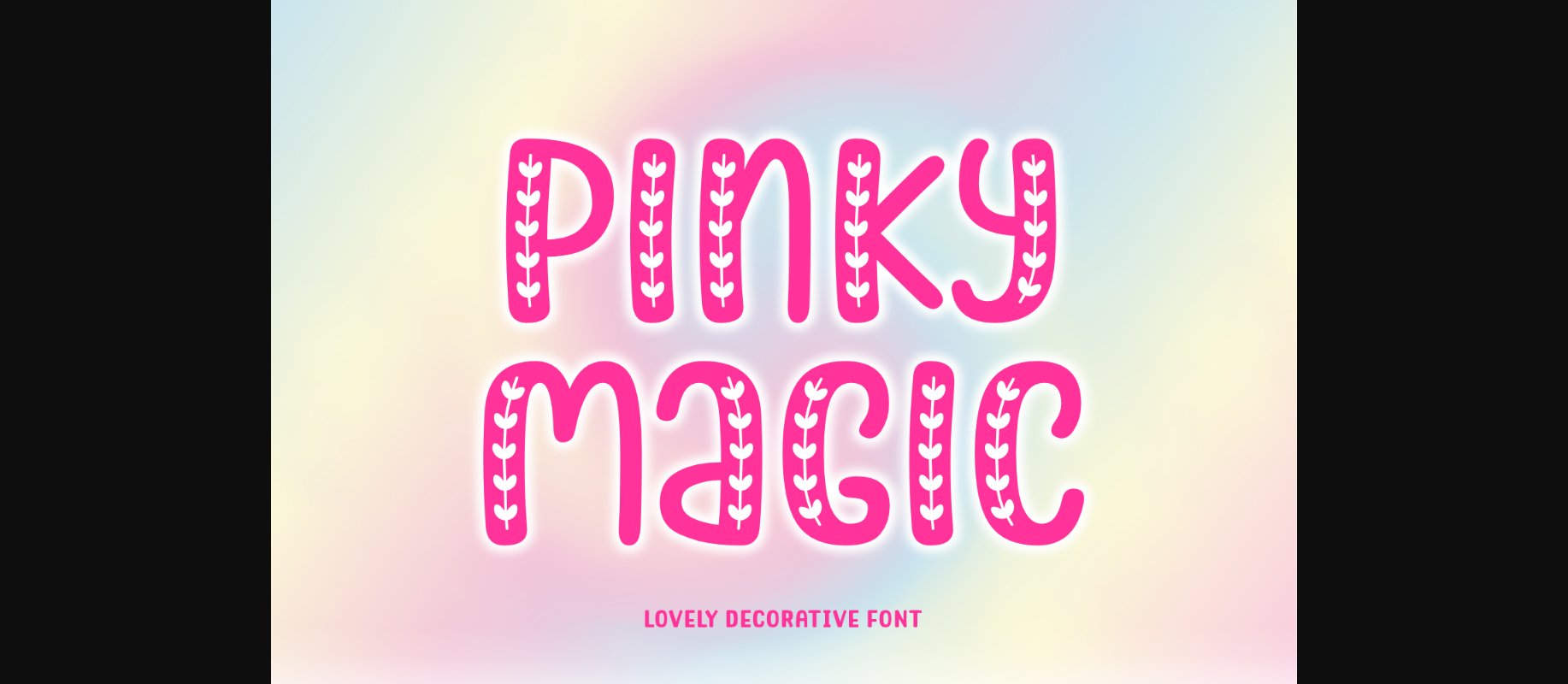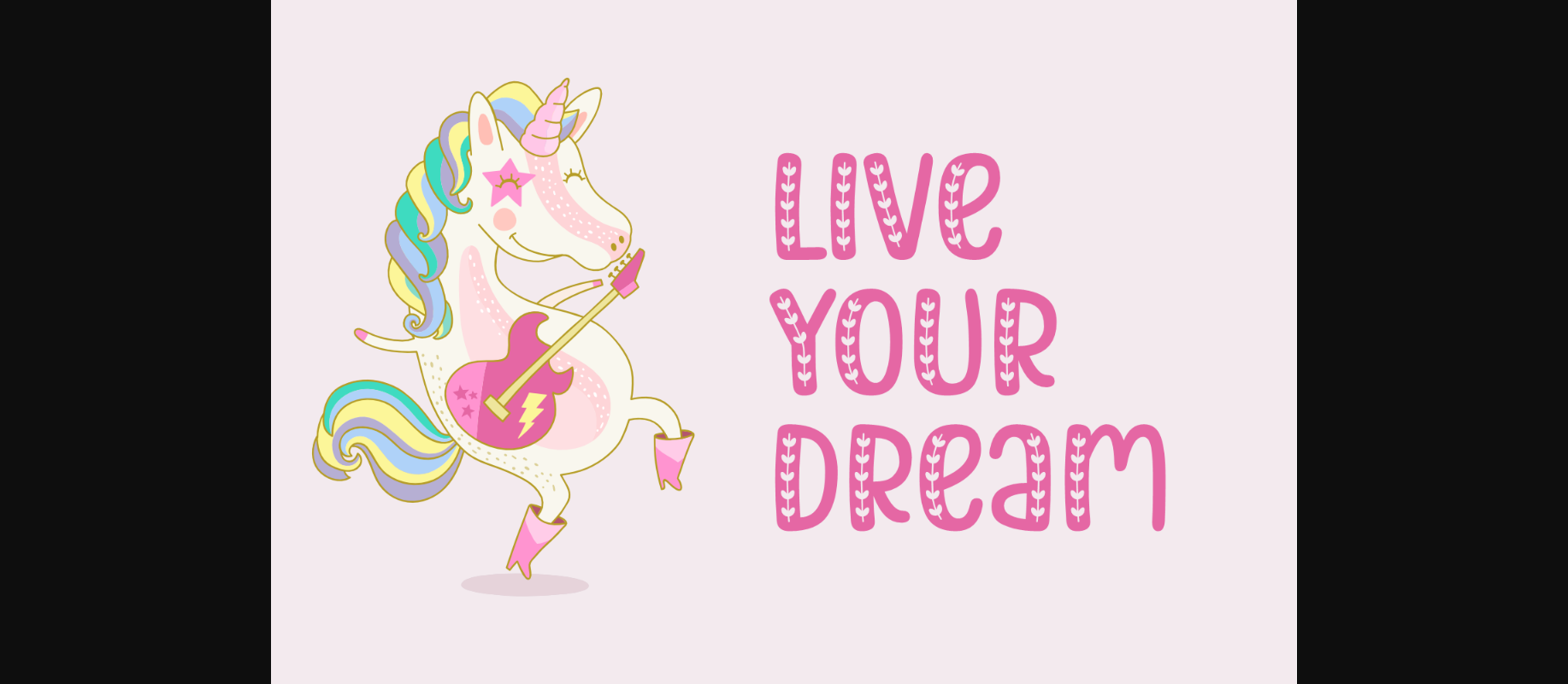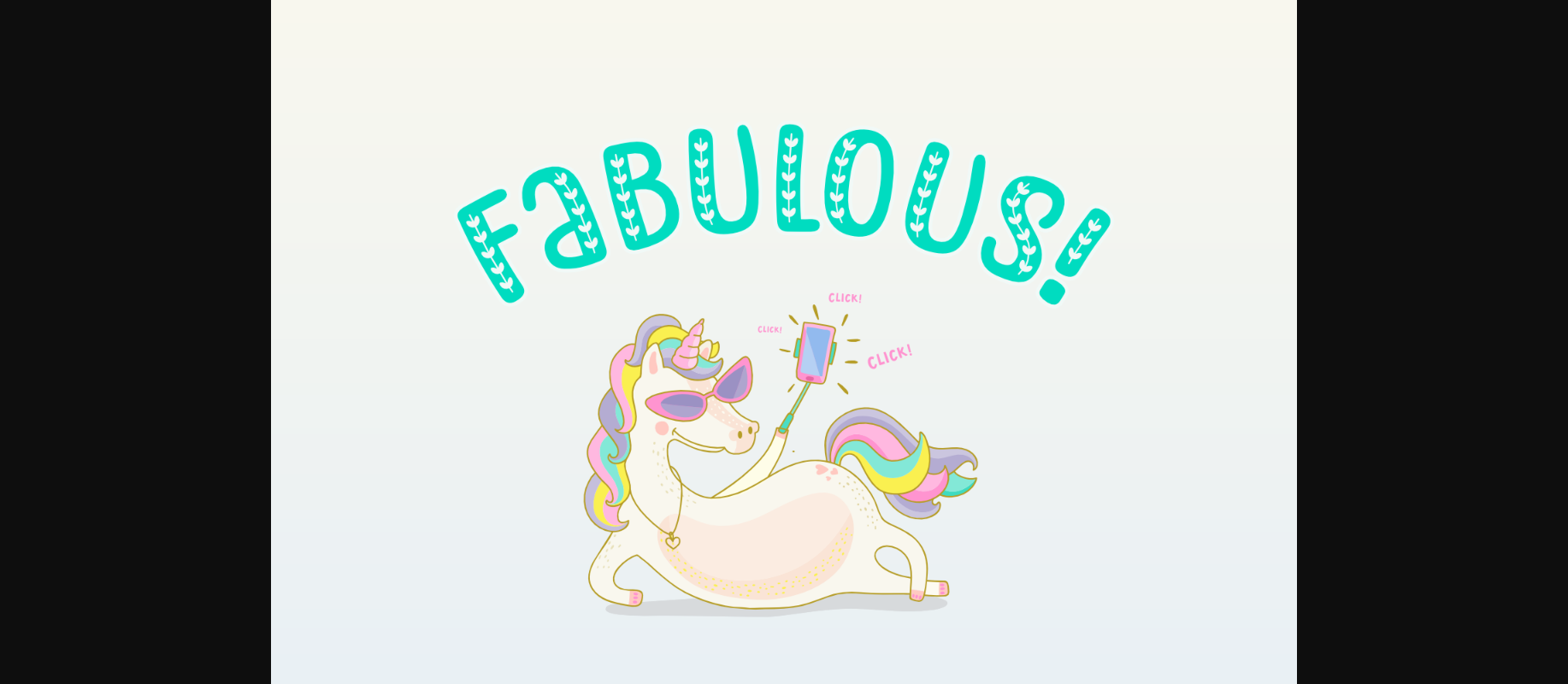
About Pinky Magic Font
Pinky Magic is a modern decorative font with a unique twist, featuring sleek lines and playful curves. Perfect for adding a touch of sophistication to any design project. Ideal for use in headlines, logos, and social media graphics.